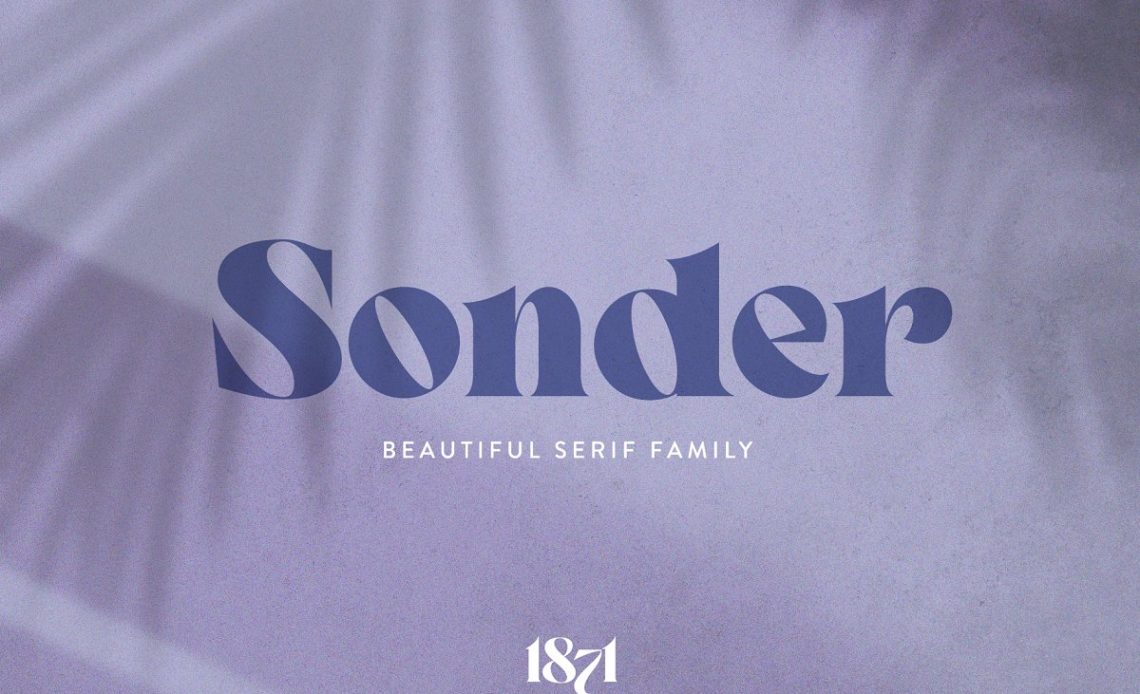
Discover the captivating world of Sonder - a beautiful serif typeface that will elevate your designs to new heights. Created by the talented Alex Joganic, Sonder is an exquisite addition to any project, whether it's logos, headlines, posters, or even shirts. With its timeless packaging inspired design, this font family brings a touch of elegance and sophistication to your creative endeavors.
What sets Sonder apart is its versatility. With 5 weights to choose from, this typeface is perfect for any project, no matter the style or tone you're aiming for. Whether you need a bold and impactful headline or a delicate and refined logo, Sonder has you covered. Its range of stylistic alternates and unique characters adds a touch of personality and charm, ensuring that your designs stand out from the crowd.
But that's not all. Sonder comes with a bundle of extras to enhance your creative experience. With 109 alternates and 27 ligatures, you have the freedom to experiment and create truly unique combinations. Need a little inspiration? Sonder also includes 8 logo templates and bonus illustrations, providing you with endless possibilities to bring your vision to life.
Sonder is more than just a font - it's a realization. It reminds us that every person we encounter has a rich and complex life, filled with dreams, routines, and worries. Just like you, they have their own story, a narrative that intertwines with countless others. Sonder captures the essence of these interconnected lives, creating a visual representation of the invisible anthill of humanity that surrounds us.